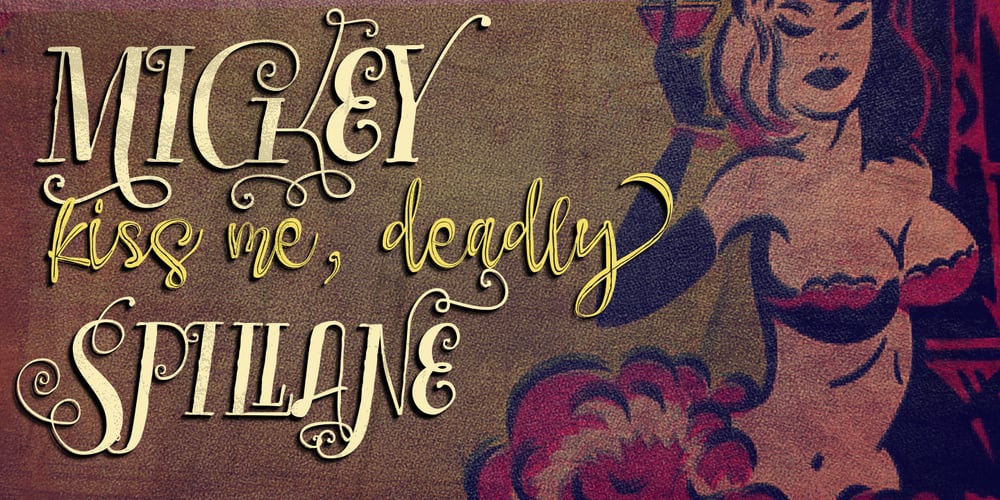
Bechamel Font Family was designed by Carlos Fabián Camargo Guerrero and published by Andinistas. Bechamel contains 4 styles and family package options. Hello! Do you need letters that look like they are drawn with a brush so that your creative work shines and stands out? We present Bechamel, a family of script fonts designed to be combinable with Bechamel Roman. BECHAMEL SCRIPT was hand drawn to design words and phrases in logos, packaging, posters, envelopes and greeting cards. BECHAMEL SCRIPT has high expressiveness because its energetic set of letters are meticulously drawn with calligraphy and lettering. In addition each of its incredible cursive letters give you the possibility to add a central vein to change the color, enhancing its impressive artisan splendor. These are the possibilities you receive by acquiring BECHAMEL: A) BECHAMEL-SCRIPT & VEIN: Cursive letters with carousel effect and OPENTYPE contained in: 26 Uppercase letters, 26 Small letters, 10 Numbers, 3 Fractions, 31 Punctuation marks, 77 Signs for languages belonging to Western Europe, 113 Signs for Central European languages. 20 Lowercase wipes, 13 uppercase alternatives for WORD START, 44 lowercase alternatives for HALF of word, 20 lowercase alternatives for WORD FINAL. NOTICE: Alternatives appear by clicking on glyph panel in Adobe Illustrator, Inkscape or Photoshop CC. B) BECHAMEL-WORDS: 57 words with capital letters underlined and combinable with BECHAMEL-SCRIPT 1, 2 and 3 ideal to connect and decorate your designs increasing expressiveness and authentic handwritten look of your ideas C) BECHAMEL-ORNAMENTS: 30 wonderful drawings made up of stars, borders, waves, hearts, dots, arrows, bow ties, etc., all specially coordinated to accompany your composite designs in BECHAMEL-SCRIPT and BECHAMEL-WORDS. Well, I hope that my work will be useful and above all that you have fun with it. If you have questions write to me that I will be happy to help you: • INTAGRAM: instagram.com/andinistas • BEHANCE: be.net/andinistas • FACEBOOK: fb.com/carlosfabiancamargoguerrero • TWITTER: twitter.com/andinistas